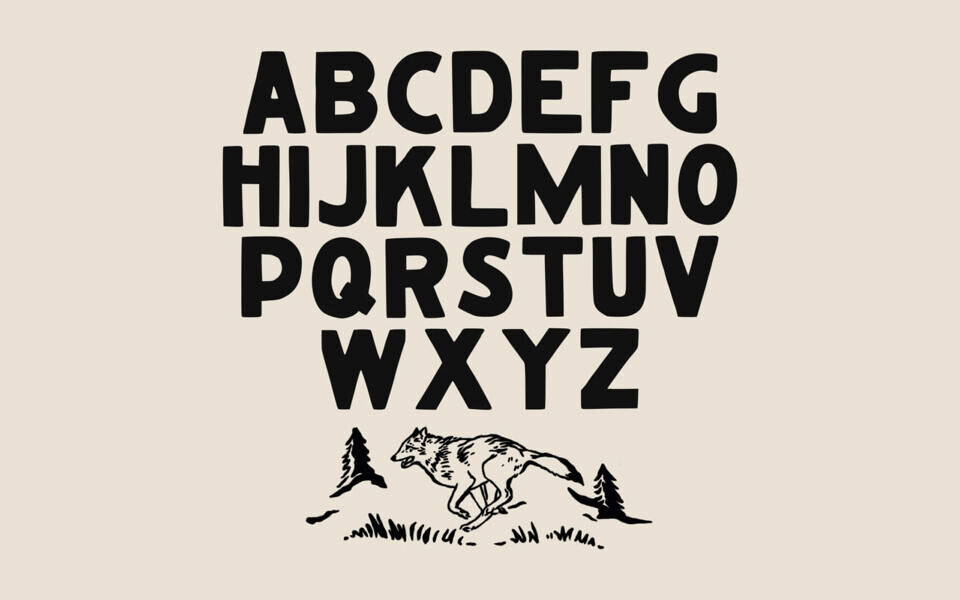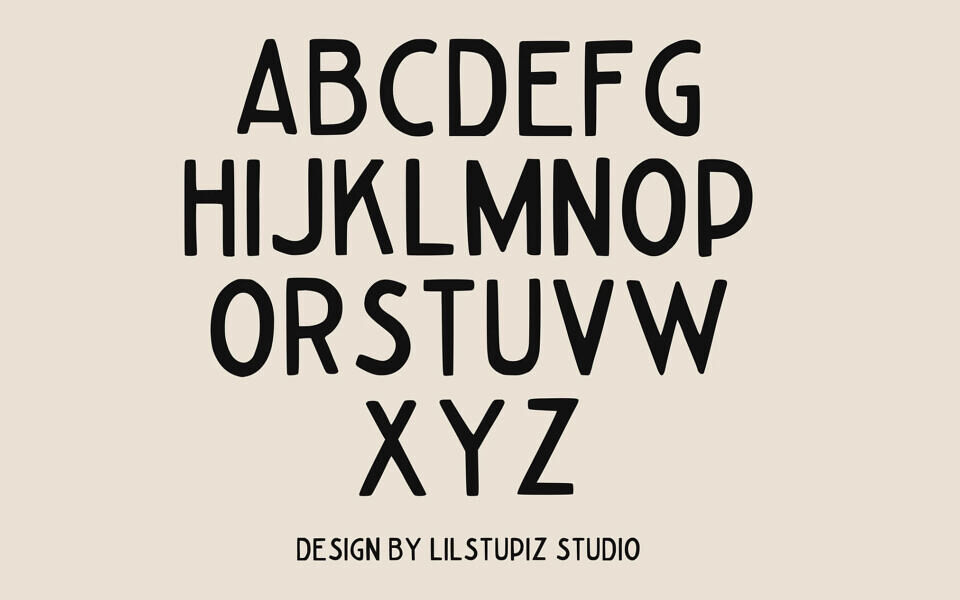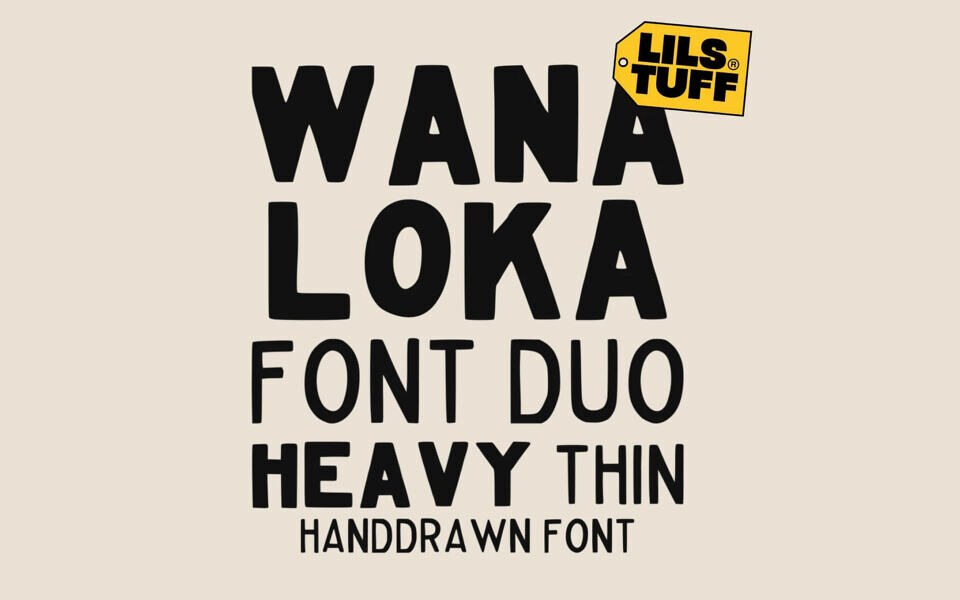
Wanaloka is a hand-drawn retro typeface that brings raw energy and refined versatility to your projects.
Carefully crafted with a playful yet professional vibe, Wanaloka blends unique character with usability, making it ideal for branding, eye-catching posters, engaging editorial designs, and creative endeavors needing an authentic, handcrafted feel.